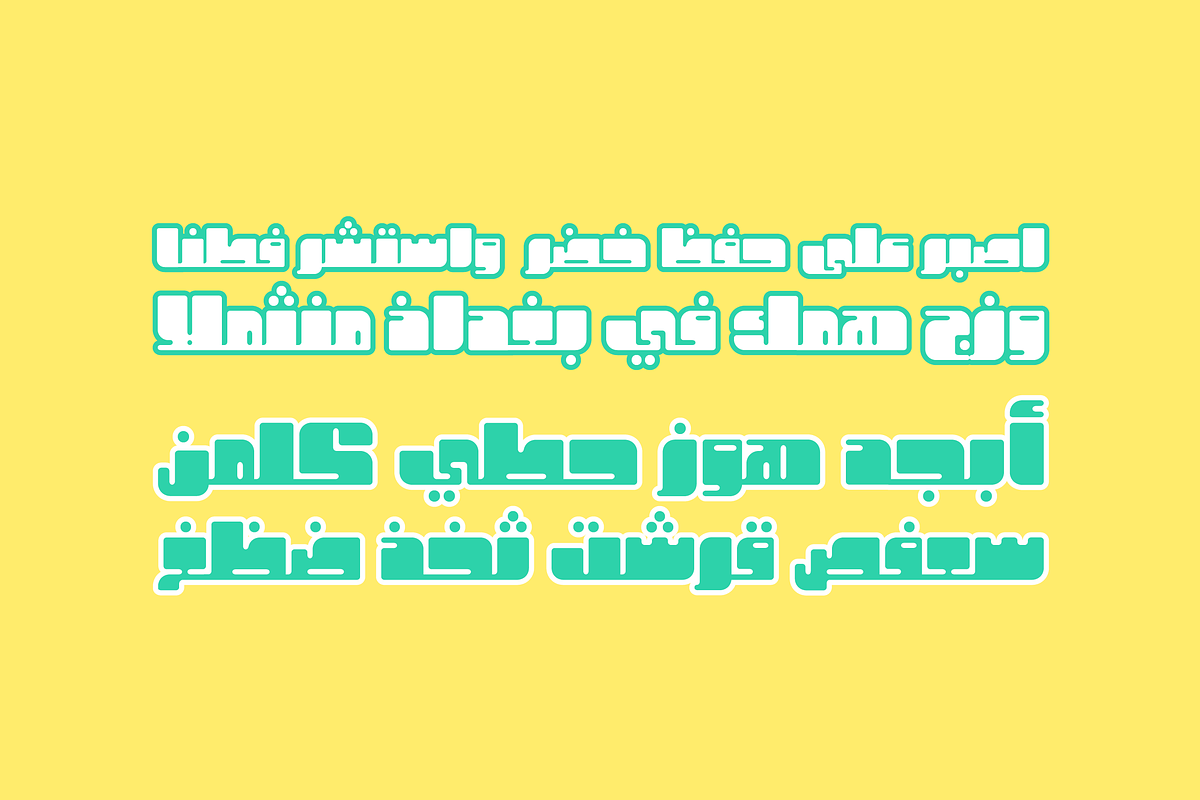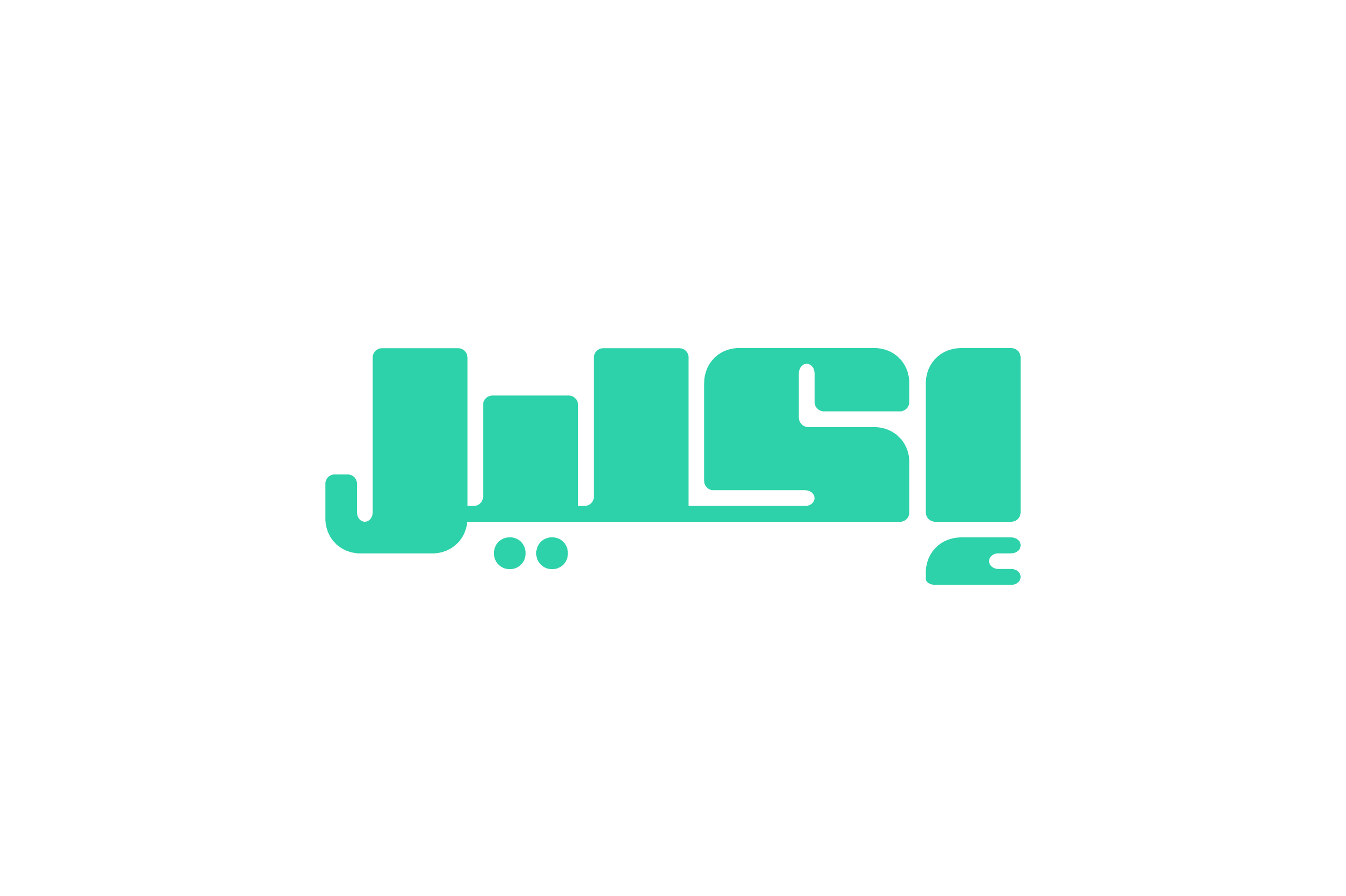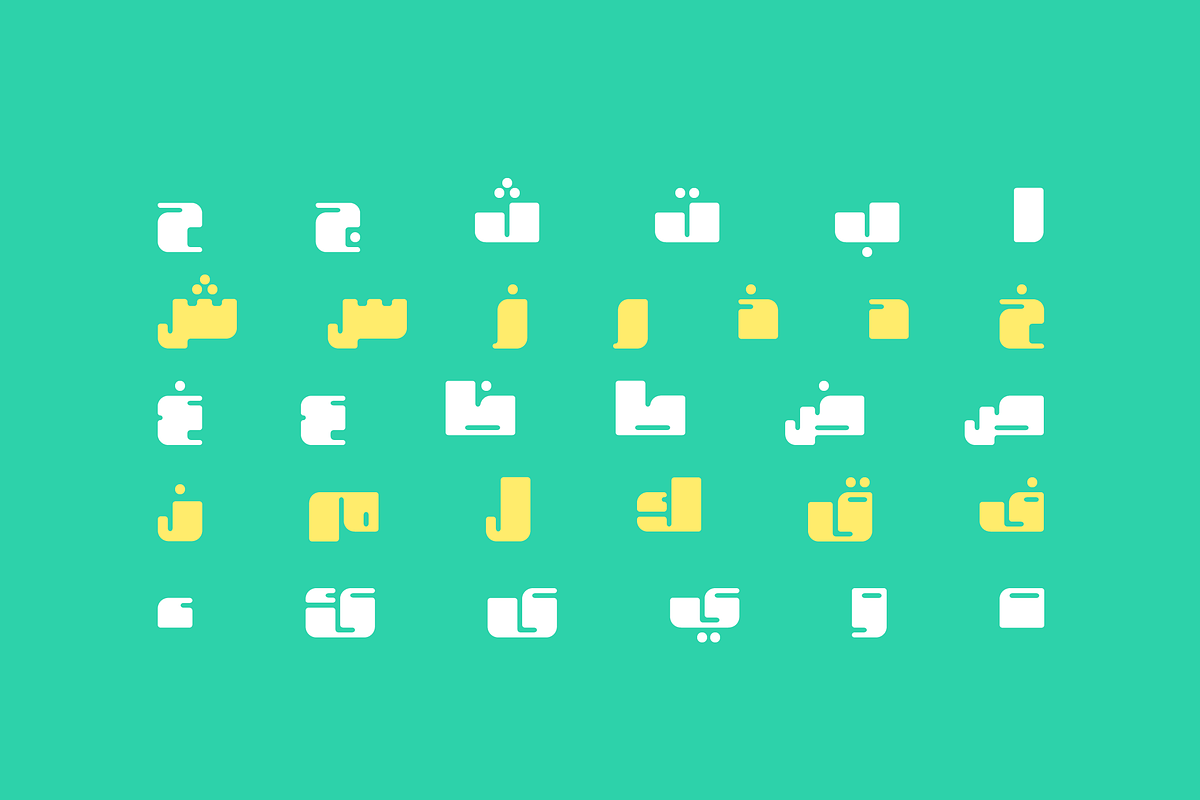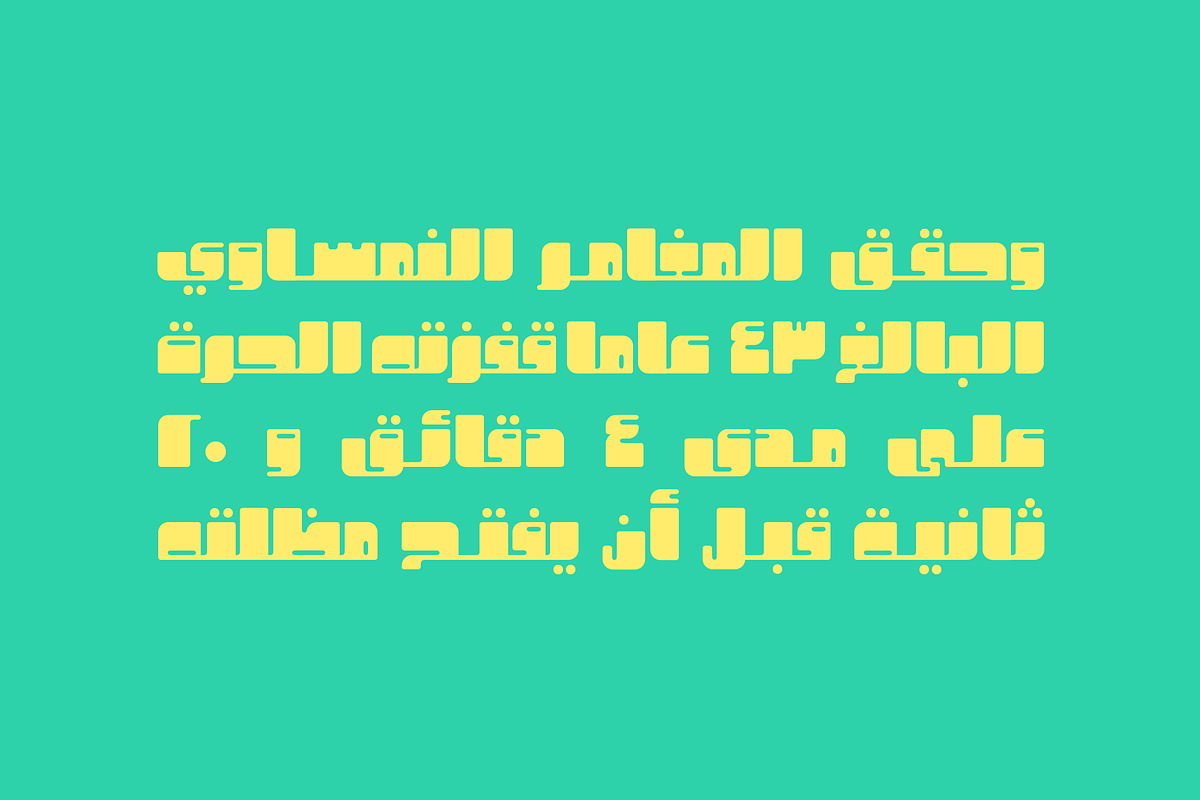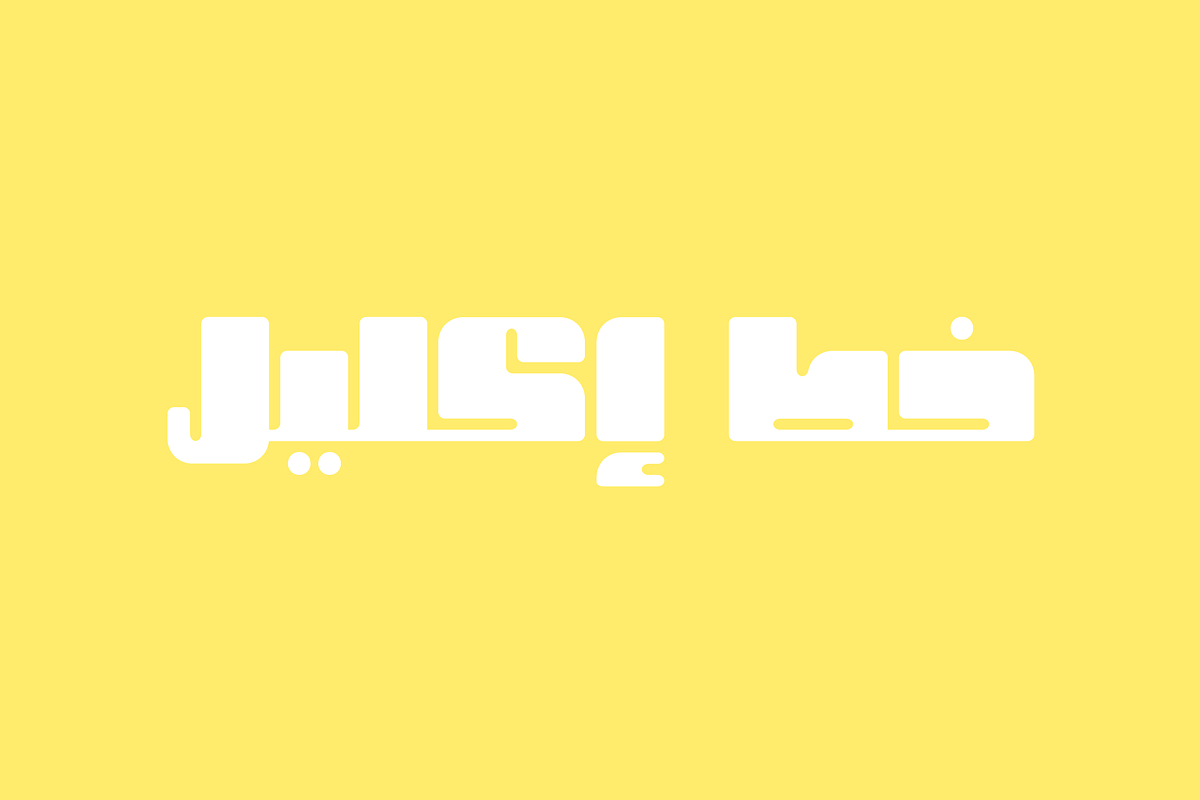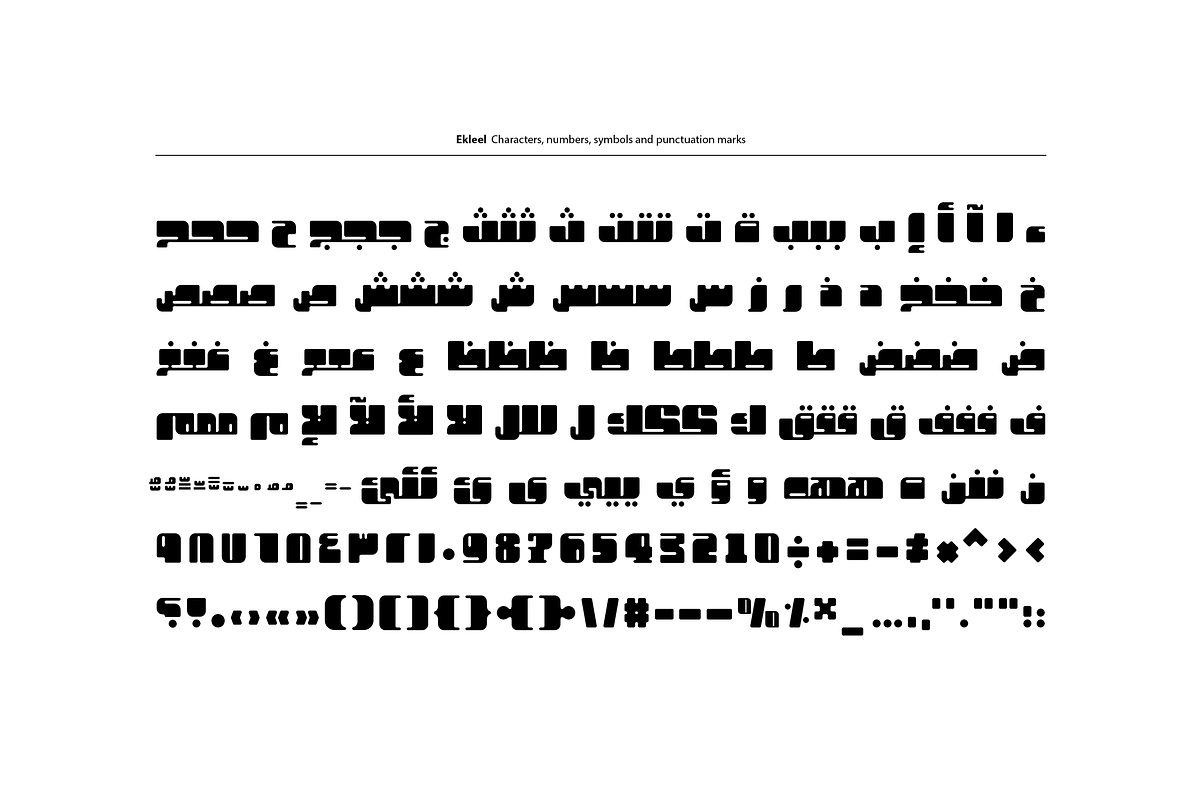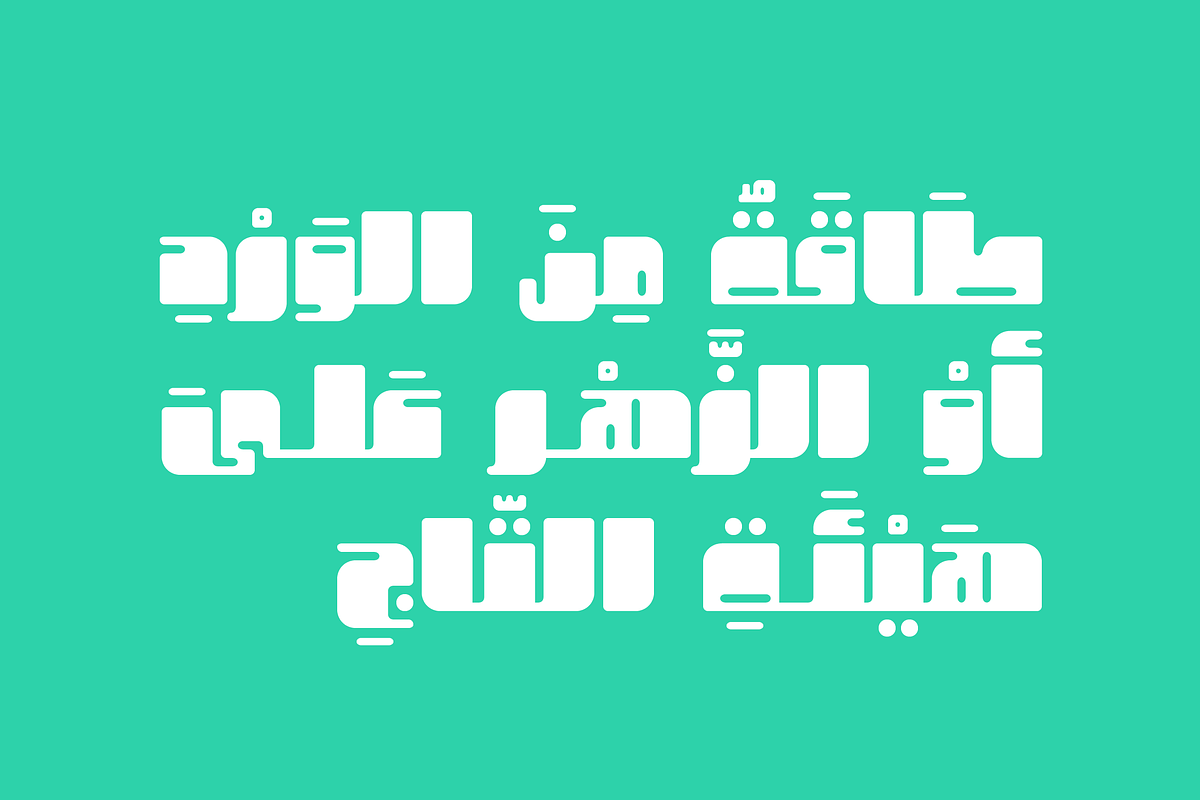
Ekleel - Arabic Font
Ekleel is an Arabic display font with a casual and friendly design. It suits a various range of applications including web design, branding, advertising and publications.